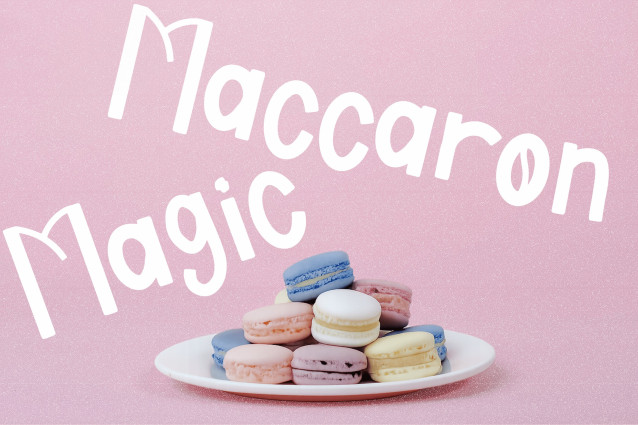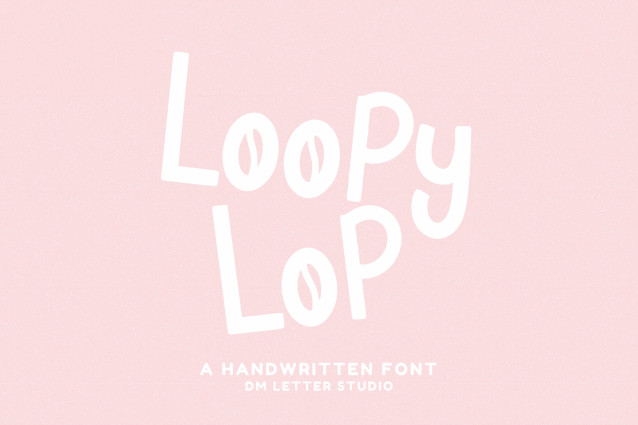
Loopy Lop Font
Loopy Lop Font is a charming and whimsical handwritten font that dances across your designs with playful curves and lively strokes. Its bubbly personality makes it the perfect choice for creative projects that need a dash of fun, from kids’ themes to casual branding and cheerful quotes.